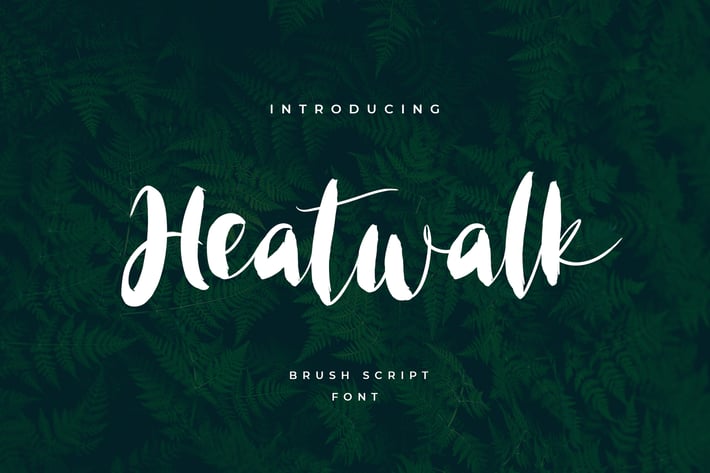
Heatwalk Script Handwritten Font
Heatawalk is a fresh modern script handwritten font, elegant and modern feel character set. Make your design more beautiful and powerful. This font is suitable for any design like branding, quotes, t-shirt printing, logos, posters, covers, main packaging, business cards, wedding cards and more, so what are you waiting for?